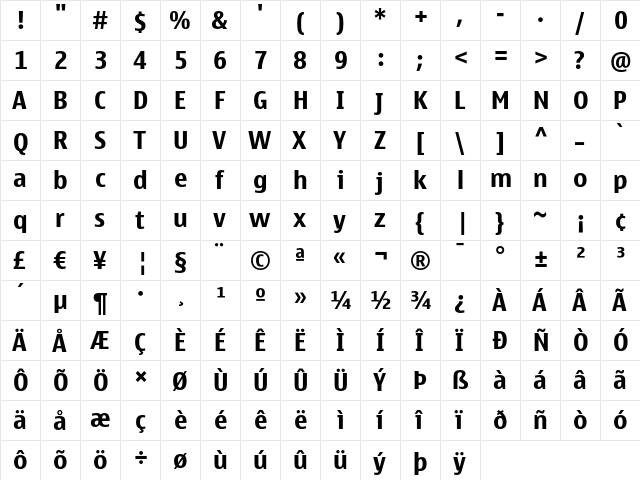
NokiaStandard Bold
Design Context for NokiaStandard Typeface
NokiaStandard offers clean, dependable letterforms without strong stylistic allegiance, making it a practical choice for designers who need flexibility. The heavy weight commands attention and anchors typographic hierarchies.